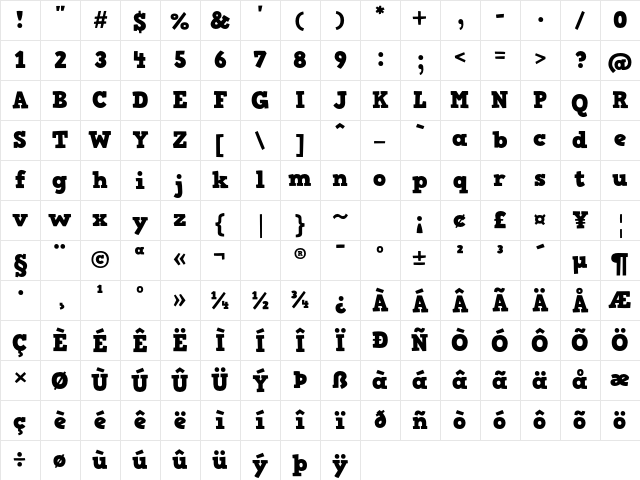
HVD Comic Serif Pro Regular
Foundry: Hannes von D￿hren
Designer: Hannes von D￿hren
Design Context for HVD Comic Serif Pro
HVD Comic Serif Pro has an approachable, lighthearted character - its loose, expressive forms are well-suited to children's content, casual branding, and fun-first design.
Font Pairing: Pairs well with a rounded or humanist sans for body copy, maintaining the friendly tone without relying on HVD Comic Serif Pro to carry extended reading.
Pro Tip: Use HVD Comic Serif Pro at larger display sizes where its expressive character can land. Pair with a clean, simple sans for body copy to maintain readability.